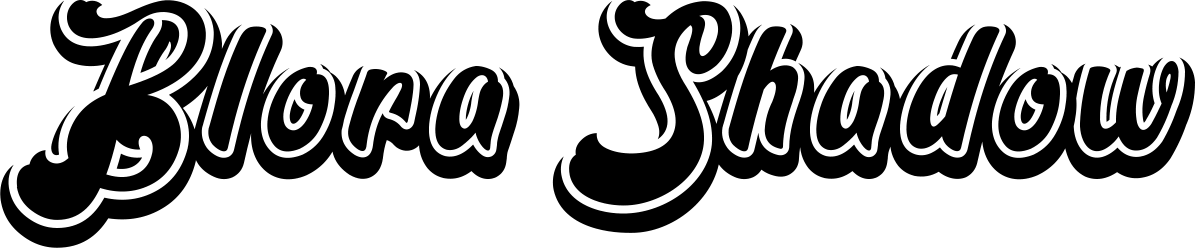
Blora Shadow Font
Blora Shadow font is a fascinating vintage and groovy font style that you can use to design many nostalgic themes with outline lines present in any character.
This font with thick and thin lines has a great combination that you can use to design ’70s themes such as flyers and movie posters. This 90s T-shirt font has three different types that show you how to walk in the world of fashion.
Introduce, this is our newest product, we give it a name
This product is Blora Font.Blora feels incredibly nostalgic with its retro shadow outline. This unique display font will take any 70’s-themed project to the next level.
Blora Font Family:
• Blora Regular & Bold
• Blora Extrude & Based